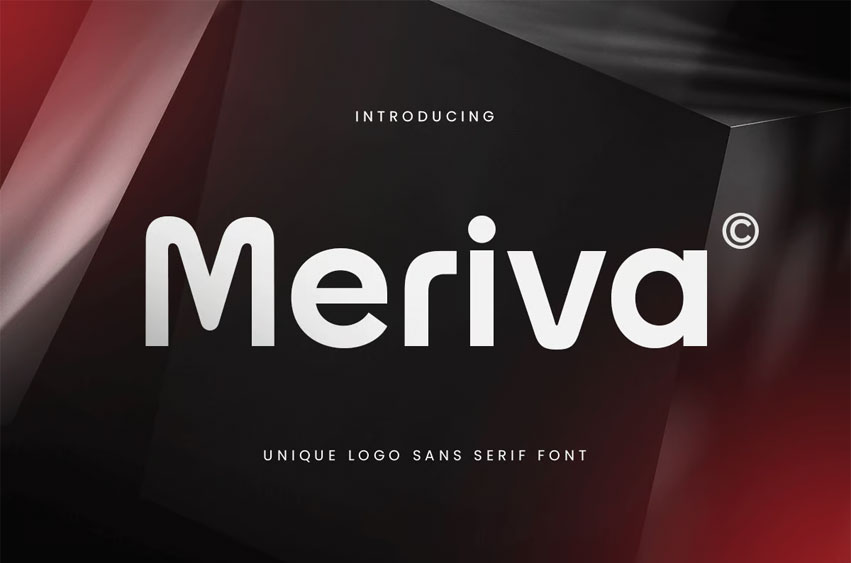
Meriva Font blends clean geometric shapes with subtle quirks, creating a modern sans serif font that feels fresh, sophisticated, and versatile. Ideal for logo design, brand identity, product packaging, fashion, and tech startups, Meriva brings a confident and distinctive edge to any visual concept.
Its balanced letterforms are crafted to ensure clarity and uniqueness, making it a strong choice for designers who value precision and style. Whether used in bold headers or delicate layouts, Meriva adapts effortlessly while maintaining a strong brand presence.
Refine your brand with Meriva—a sans serif font that’s equal parts modern, minimal, and memorable.
Meriva Unique Logo Sans Serif Font Features:
• Clean and Unique Sans Serif Style
• Perfect for Logos, Branding, Tech, Fashion & Packaging